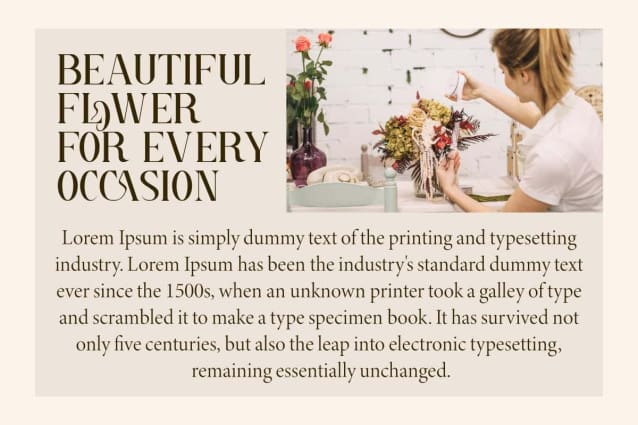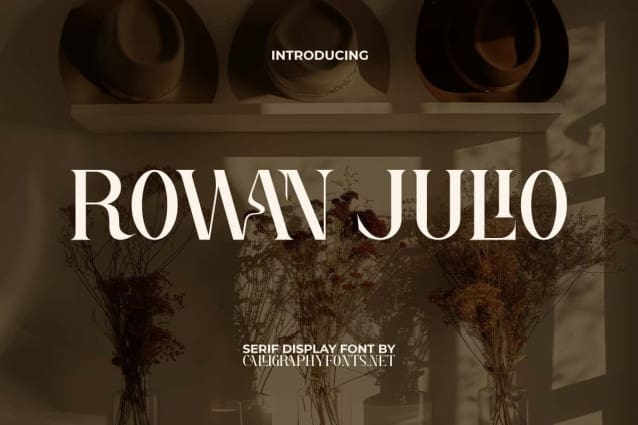
Rowan Julio Font
Rowan Julio Font is a stylish serif display font created with luxury in mind, its graceful curves and sharp shapes provide a timeless appeal that enhances any design. This font is suitable for upscale projects such as blogs, card design, cover, greeting card, headers, invitations, label, logos, magazines, menu, mockup, poster, product packaging, stickers, template, titles, websites, and more.
Rowan Julio Font is a perfect serif display font with special ligatures that give it an authentic look, it will look very minimalist and can attract attention. With a versatile style, you can use this font for any purpose, such as advertising, bouquet, cosmetic, fashion, florist, graphic designs, home furniture, interior design, makeup artist, photography, printing, skincare, wedding, writers, etc.
Rowan Julio Font comes with a complete set of Uppercase and Lowercase Basic Characters, Numbers, Punctuation, Symbol, and Ligature. It is supported with multilingual characters and ready to use both on Windows machine or Mac with simple installations. It’s tested to work well in the Adobe Apps (Illustrator, Adobe InDesign, Adobe Photoshop) CorelDraw, and others. PUA Encode Characters means you can access all the characters easily – Fully accessible without additional design software.